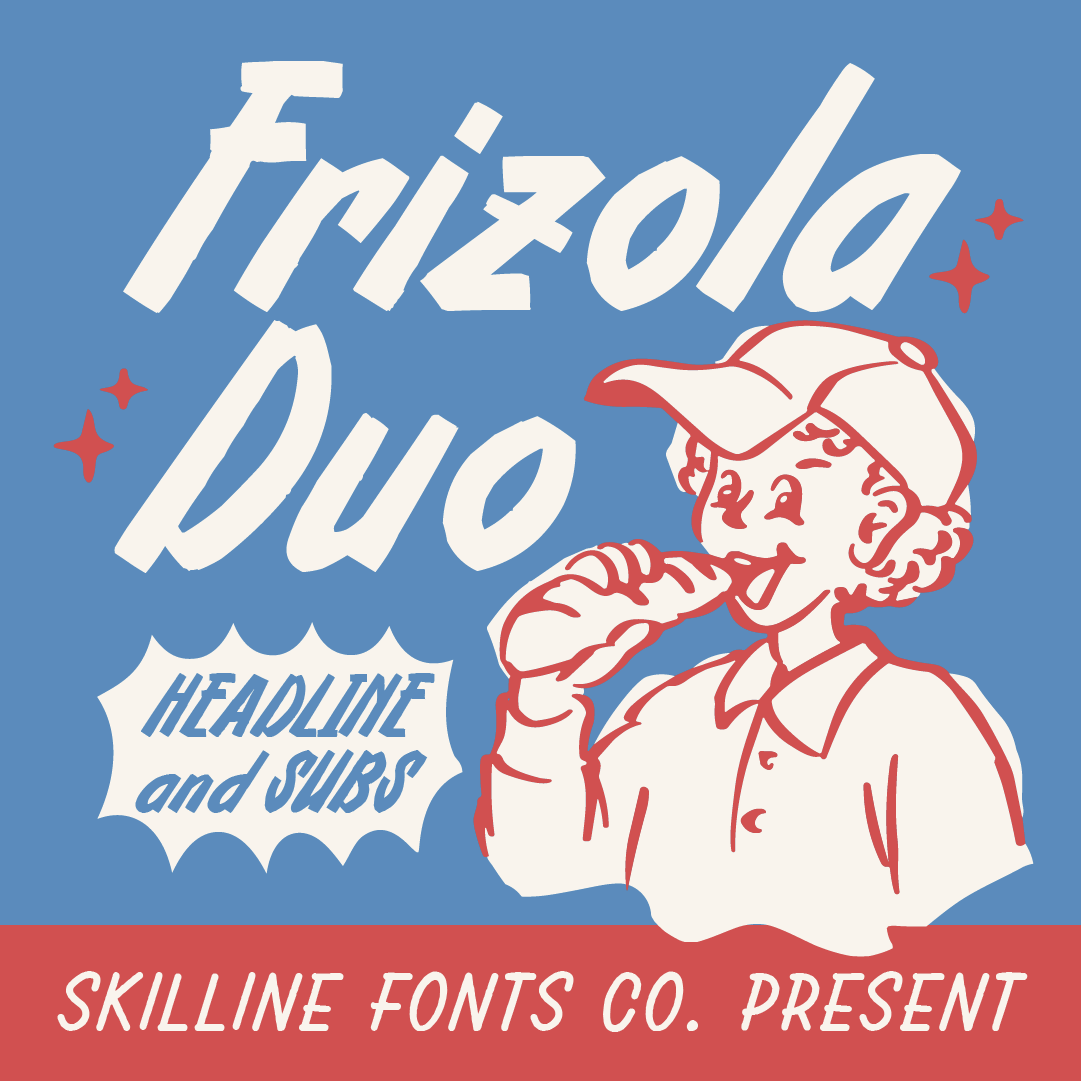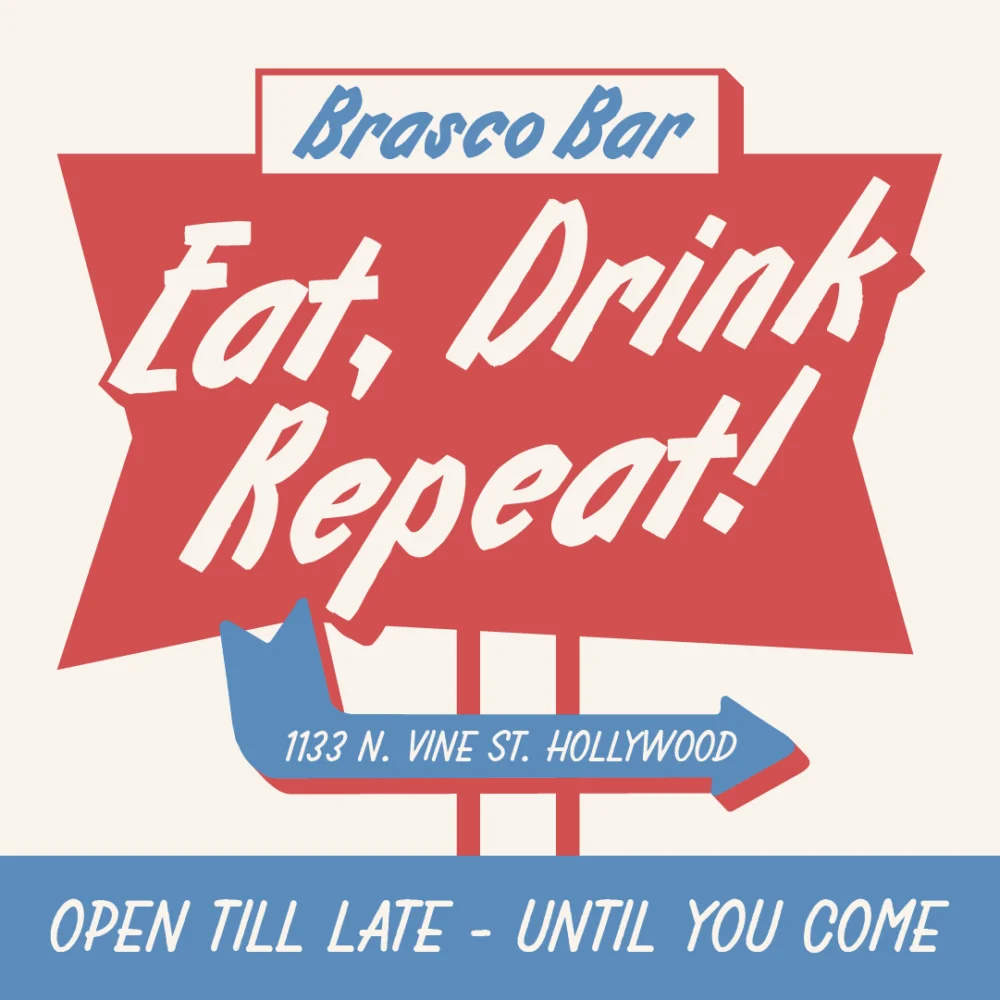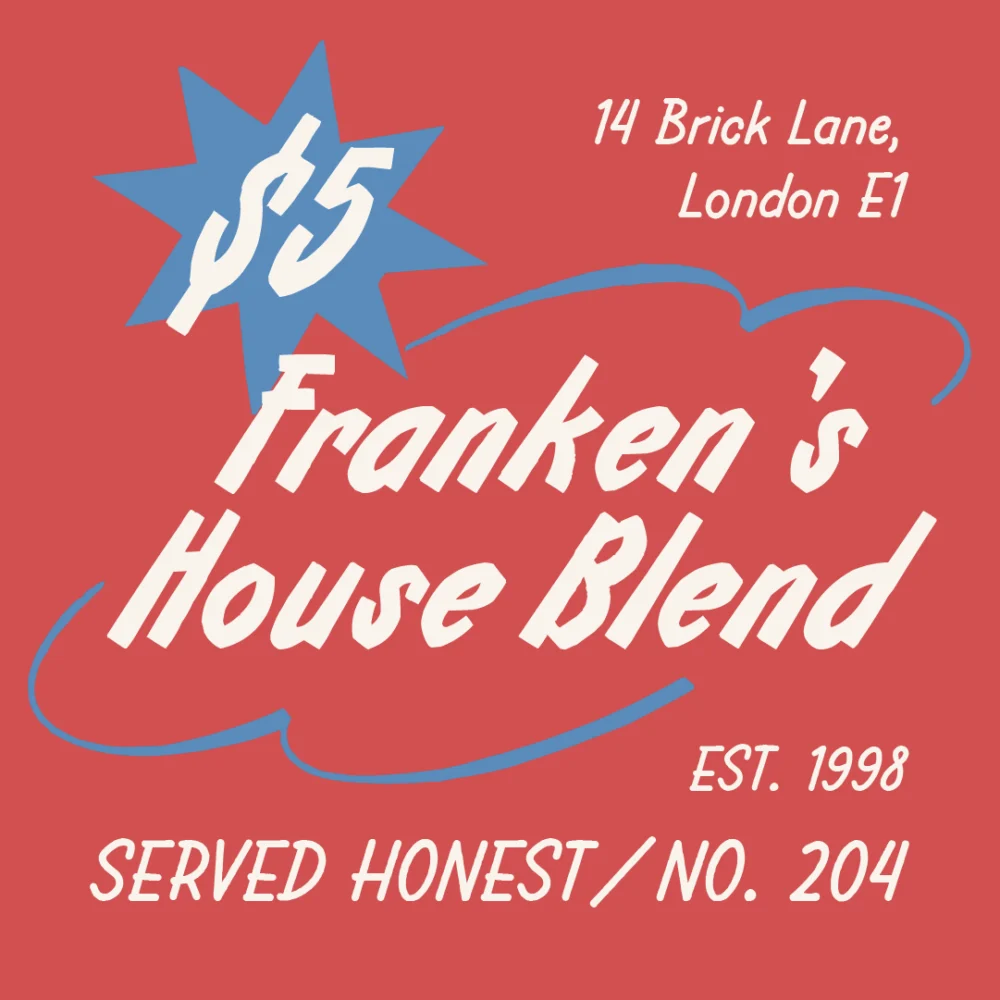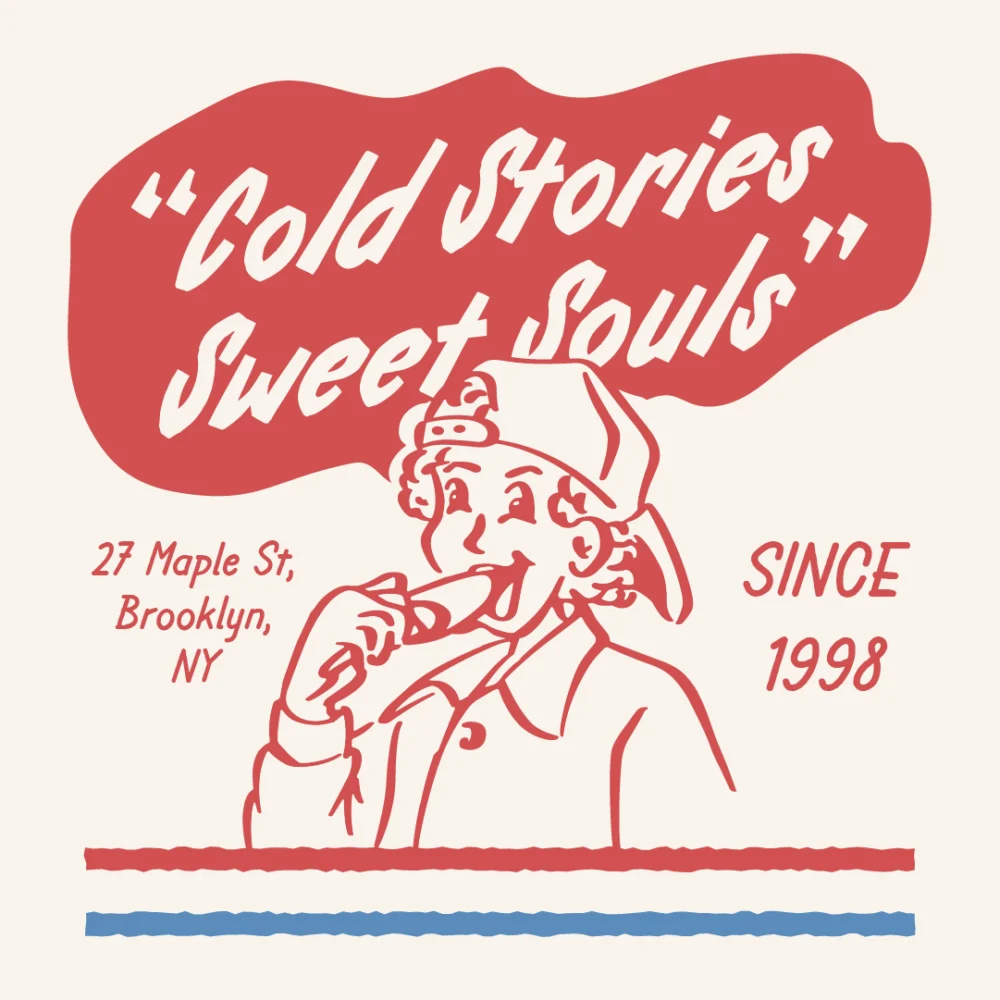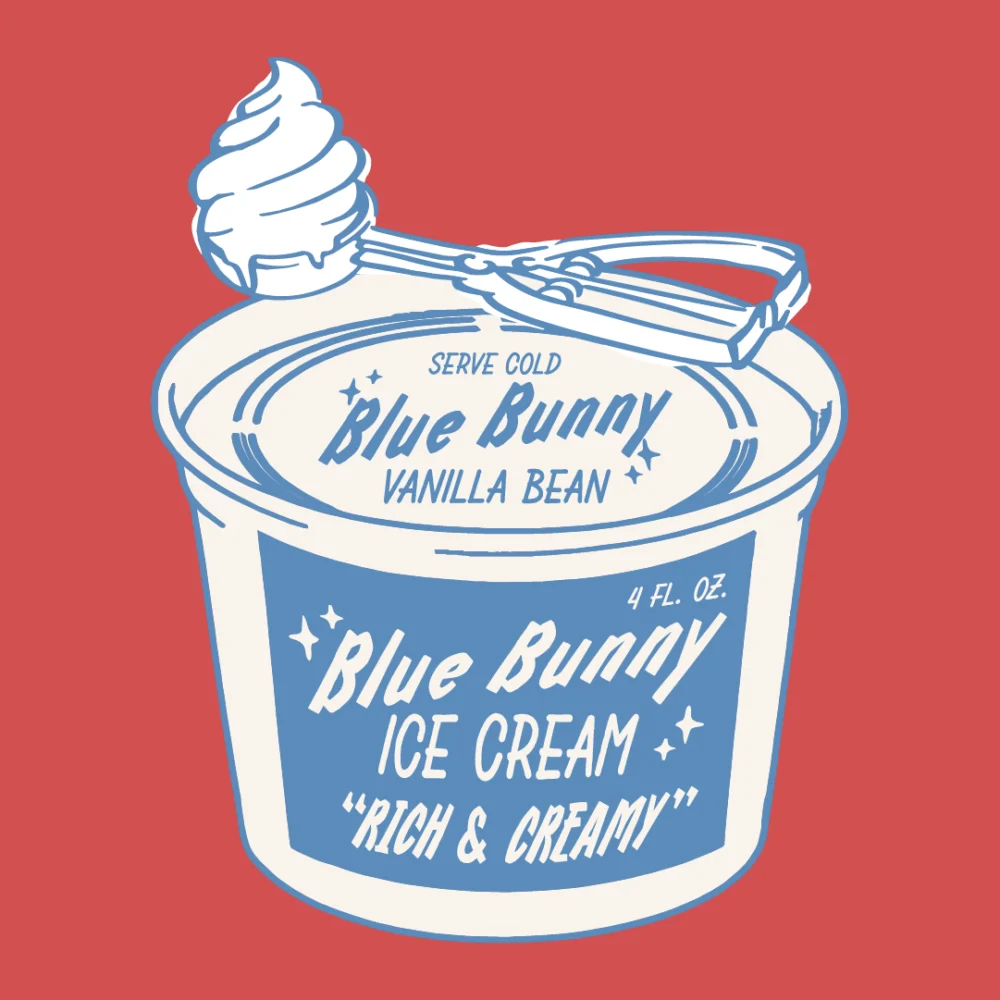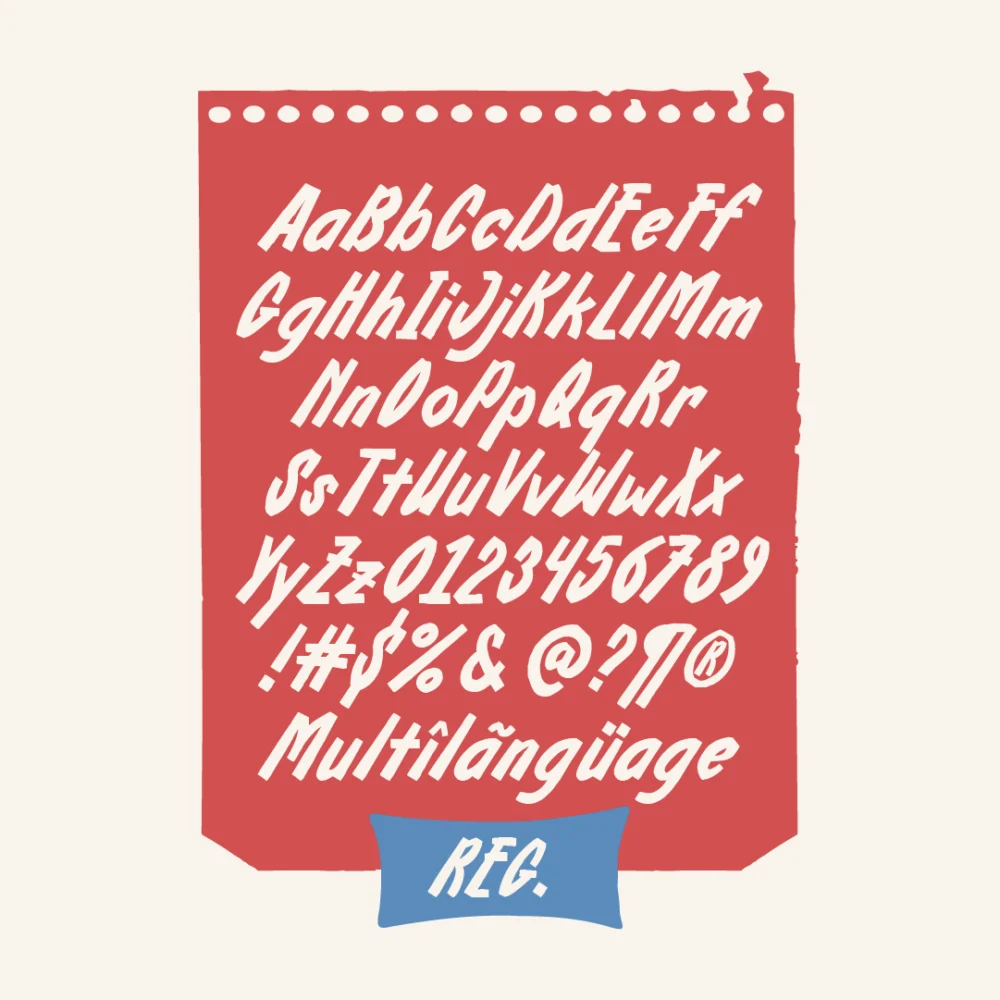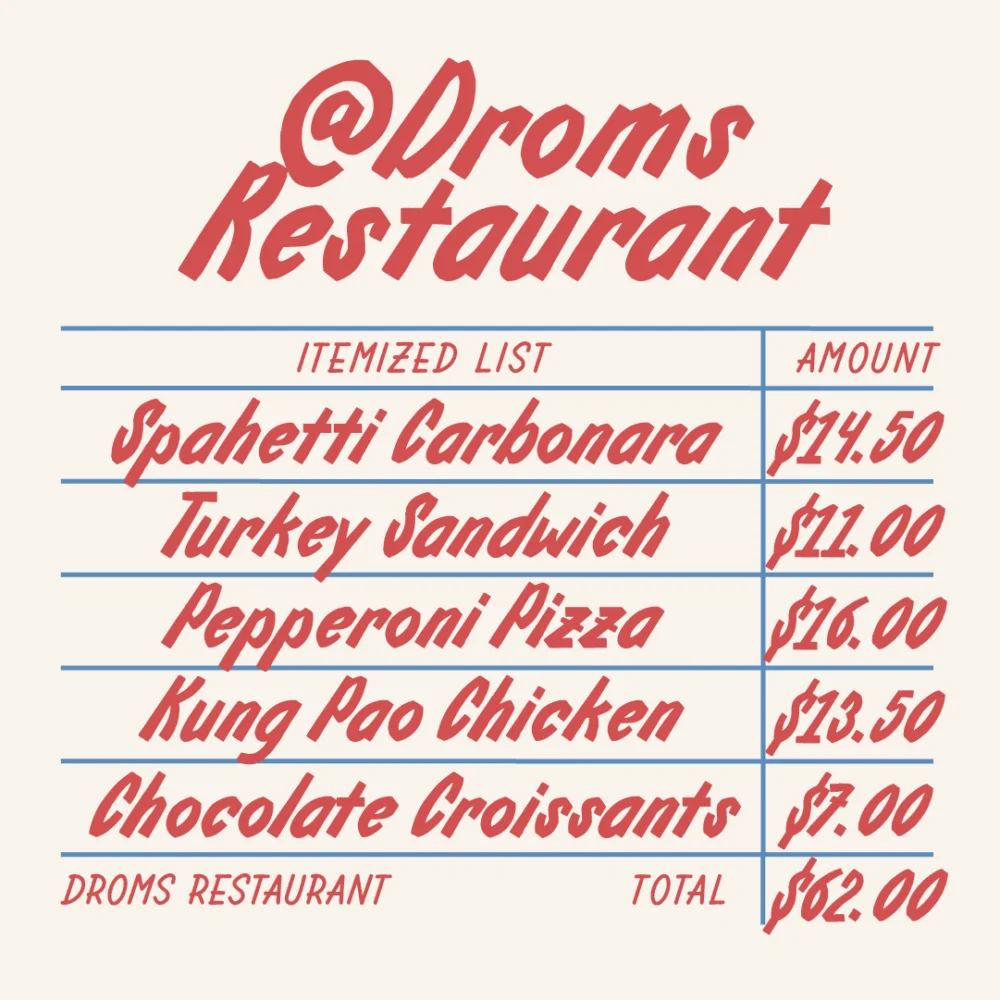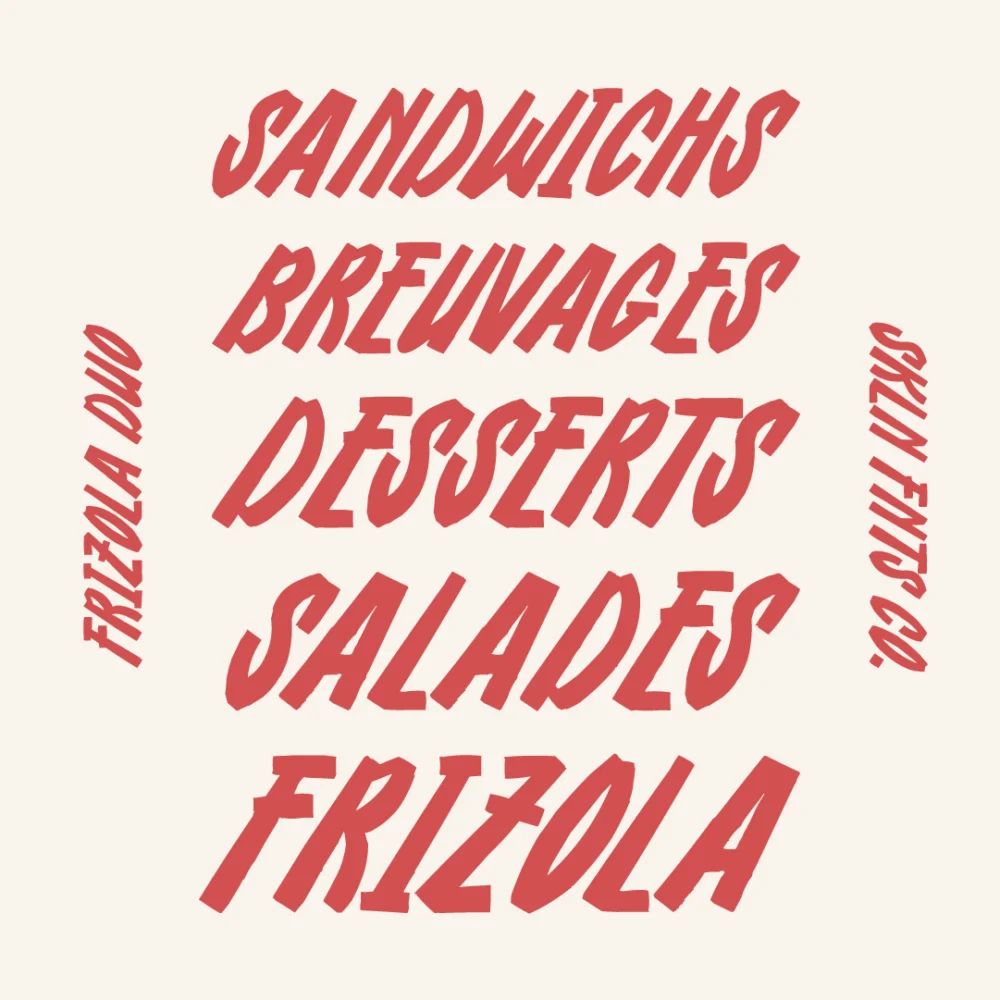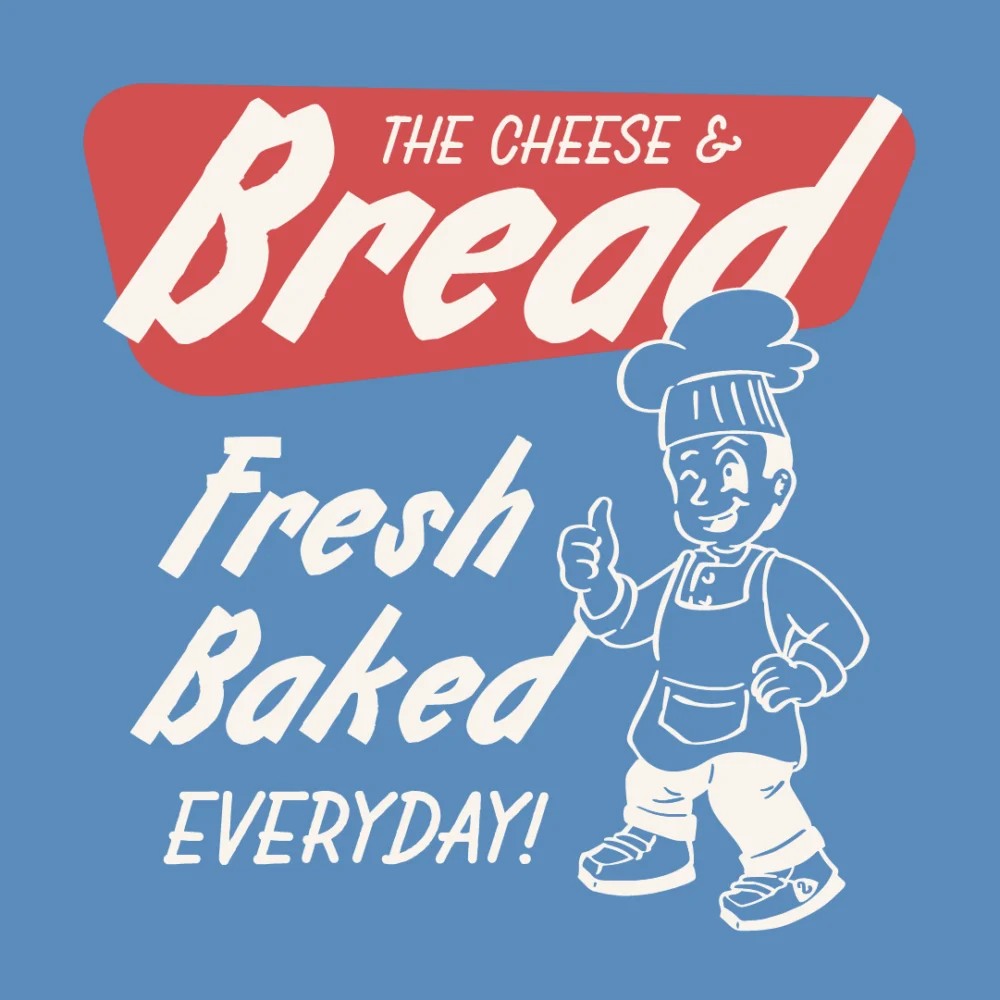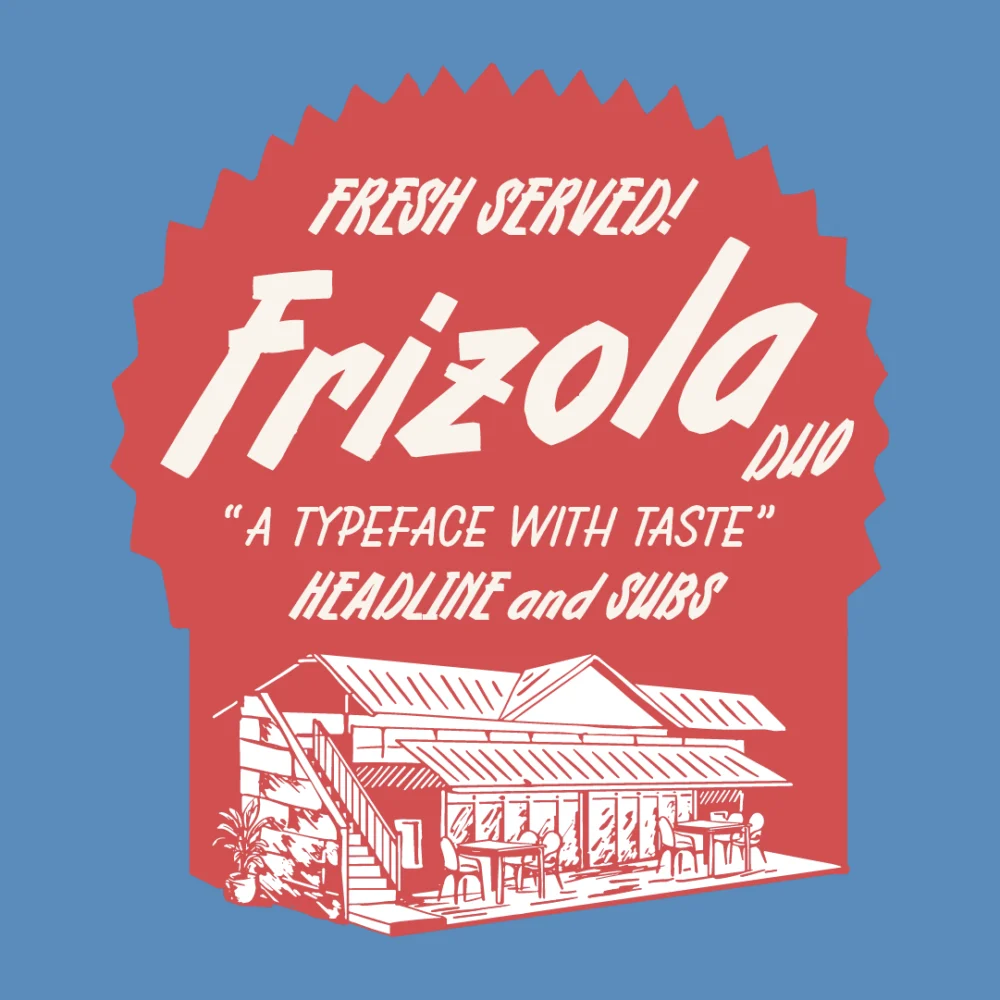
SFC Frizola Regular
SFC Frizola Sub
Bring the warmth of vintage diners, classic bakeries, retro cafés, and handcrafted branding into your designs with Frizola Duo. Frizola Duo is a playful handwritten display font family featuring two complementary styles that work beautifully together. The bold Regular style creates eye-catching headlines, while the softer Sub style is perfect for supporting text, taglines, menus, packaging, and promotional graphics.
Inspired by mid-century food advertising, vintage signage, and nostalgic storefront lettering, Frizola Duo delivers an authentic handcrafted feel while remaining clean, highly readable, and versatile.
• Duo Typeface (Regular & Sub)
• Playful, Friendly & Retro Character
• Complete Uppercase, Lowercase, Numerals & Punctuation
• Multilingual Support